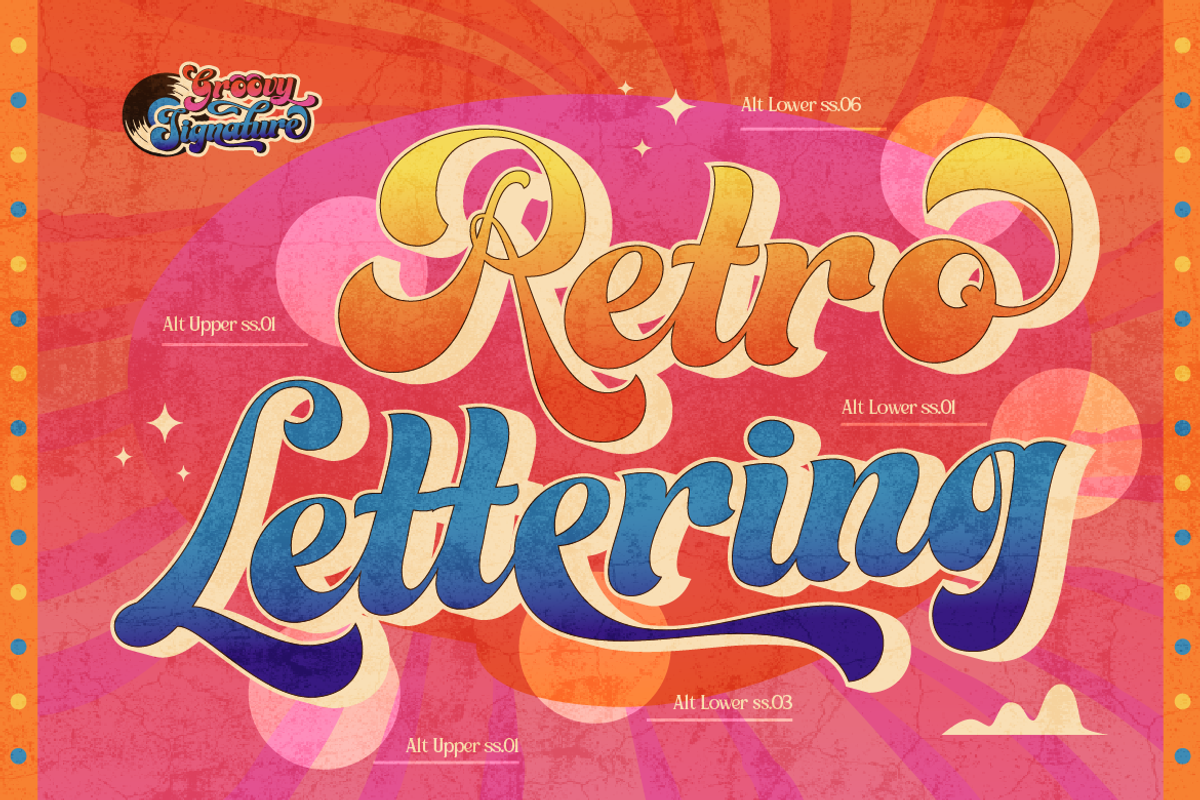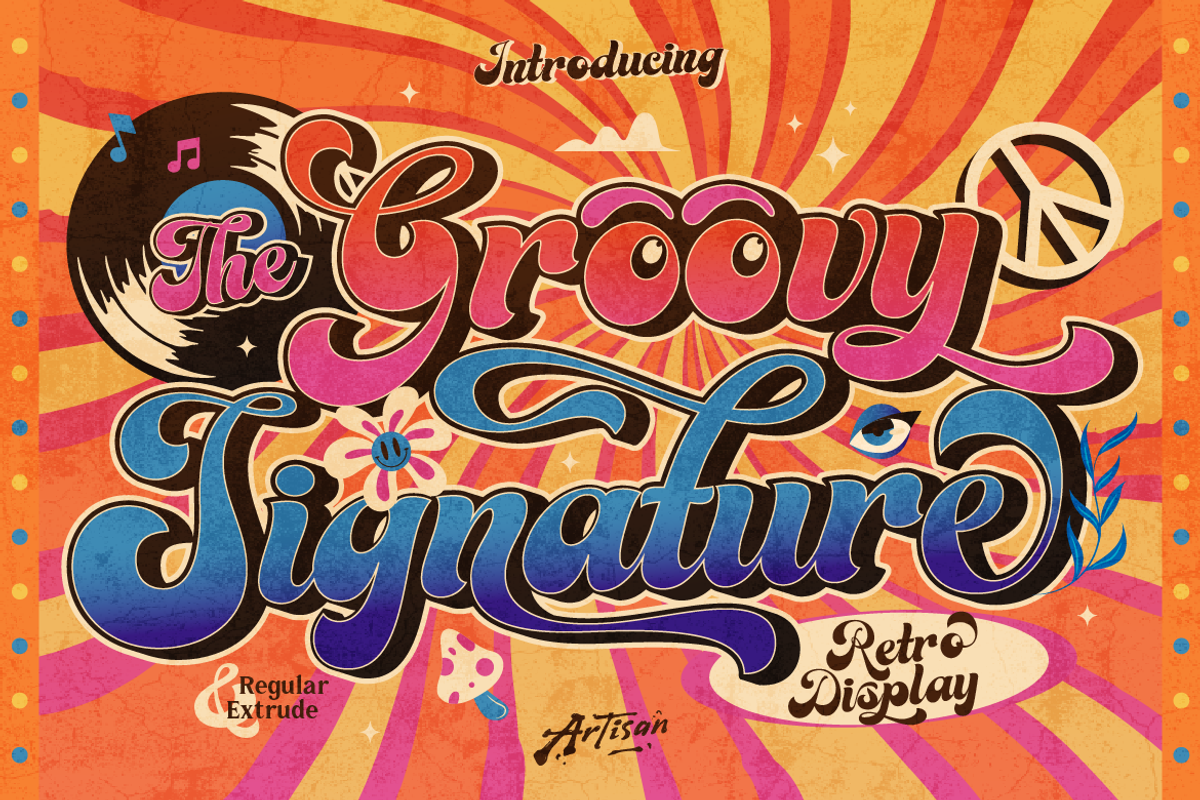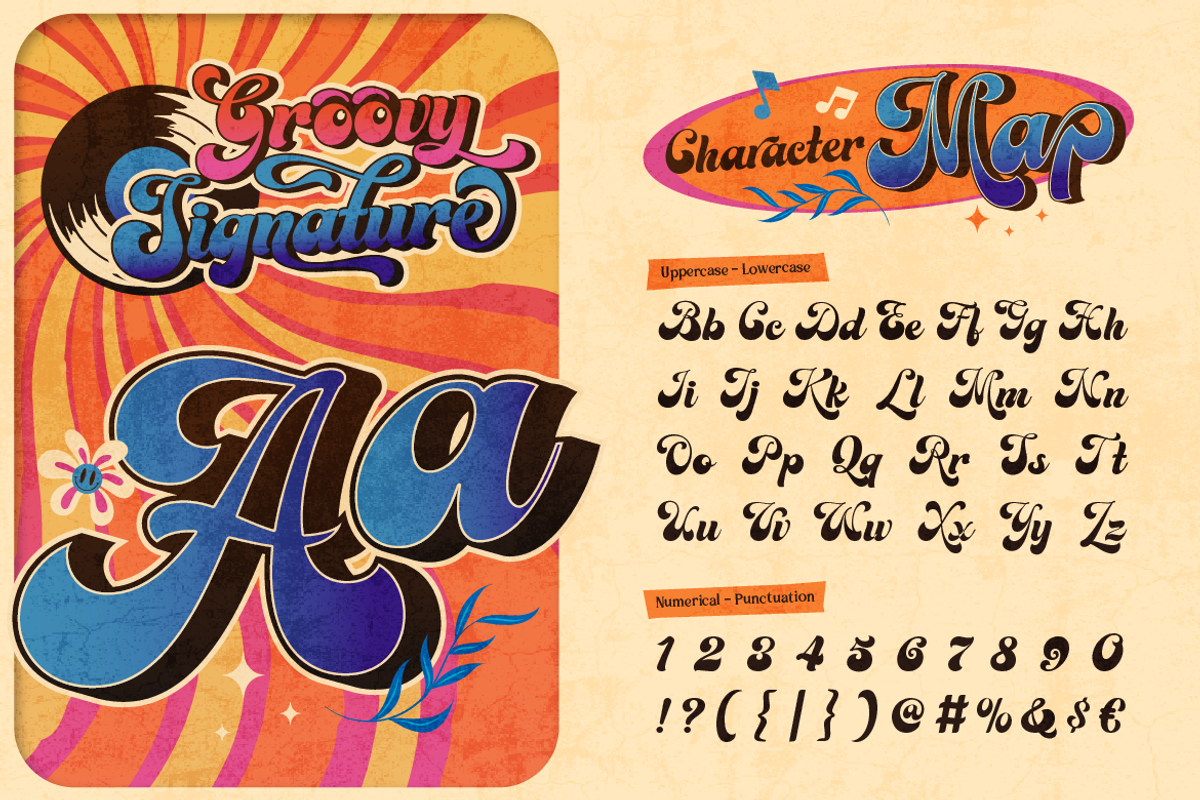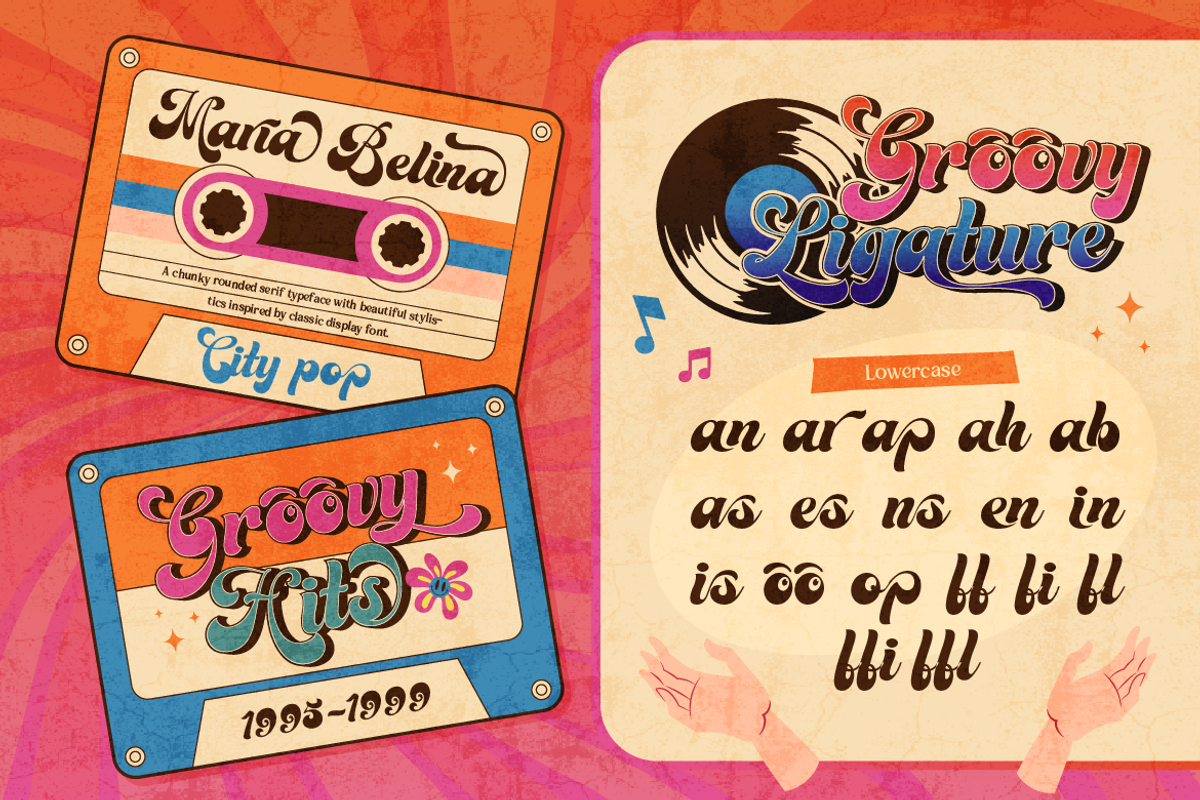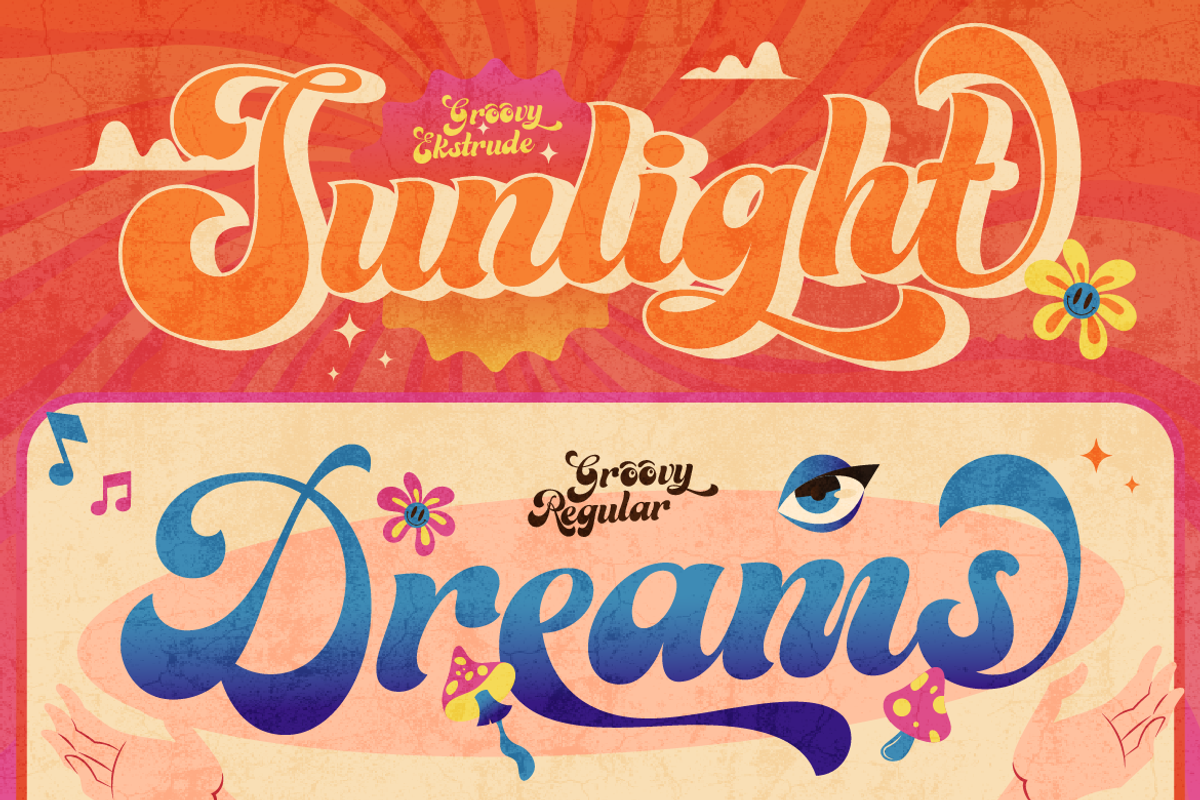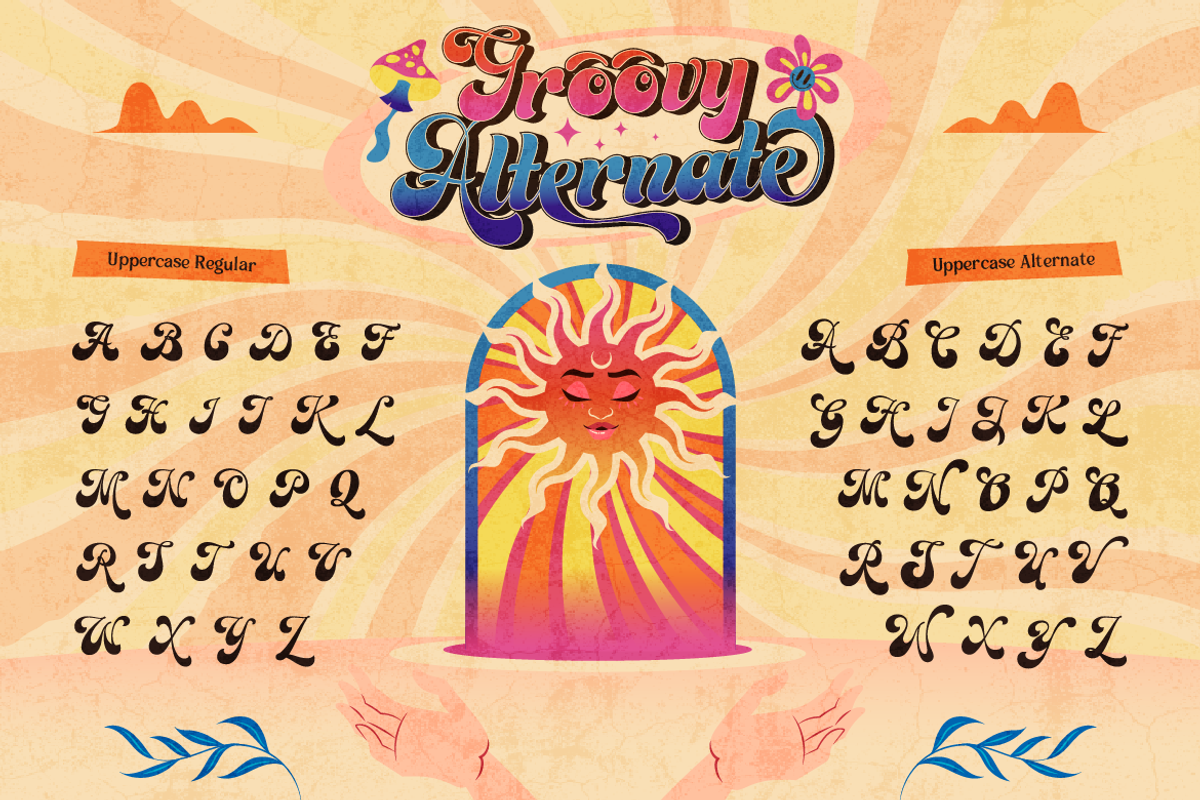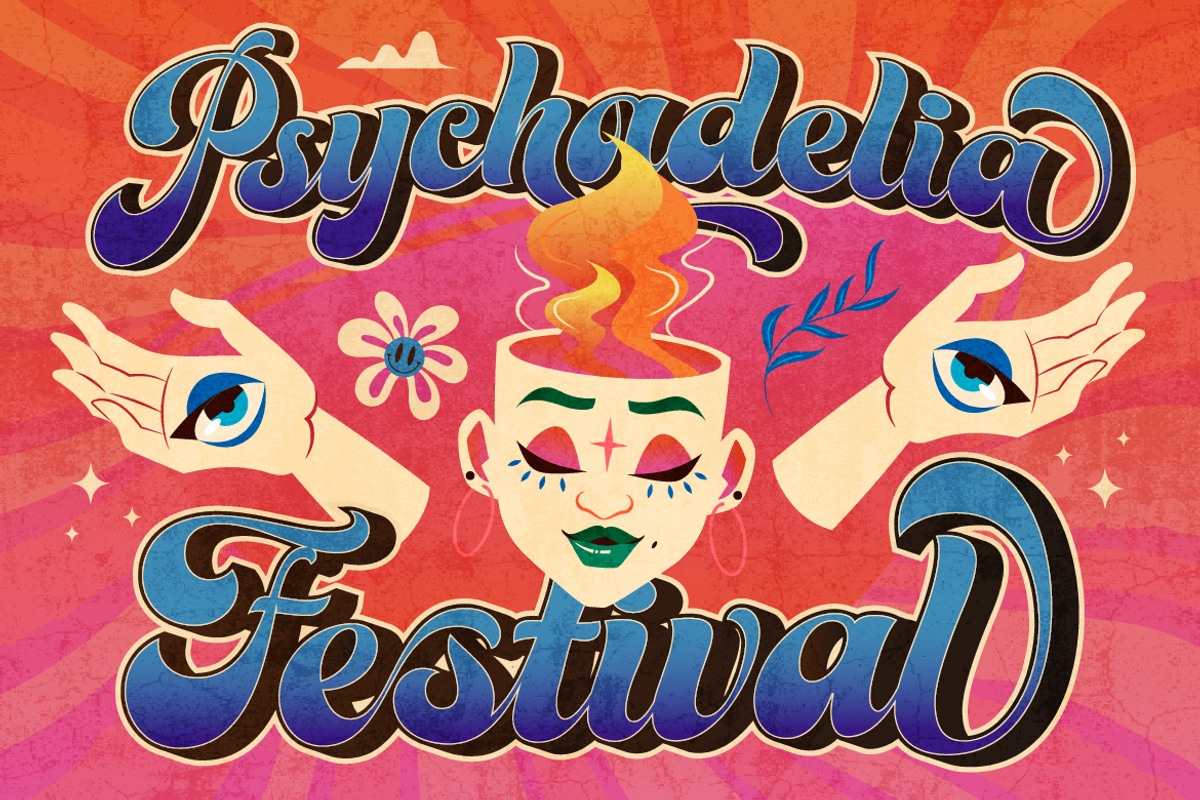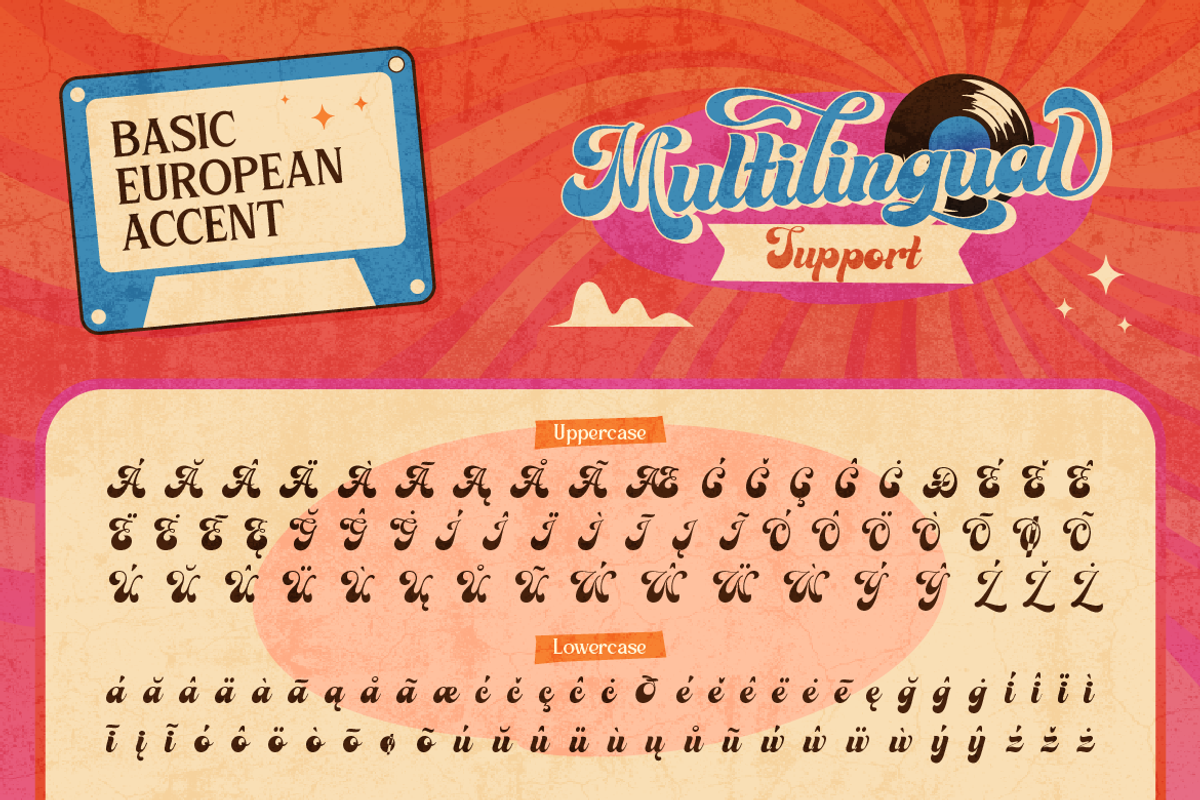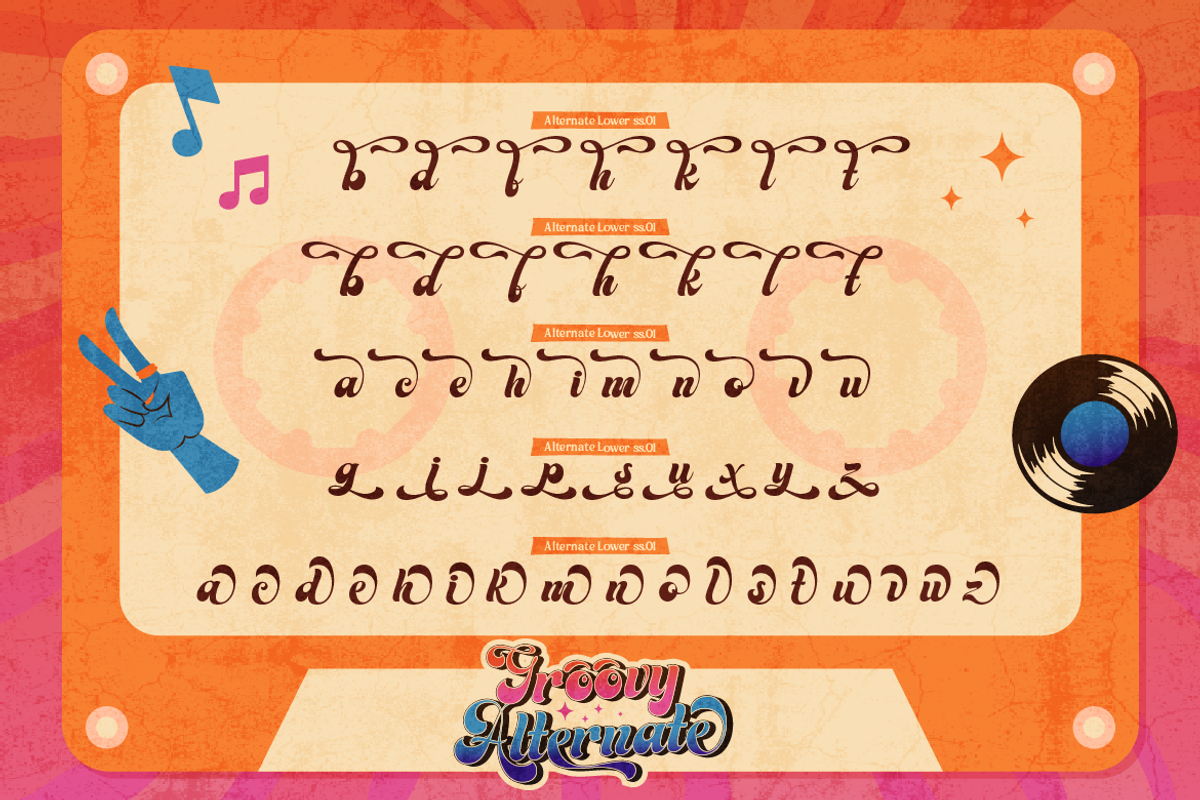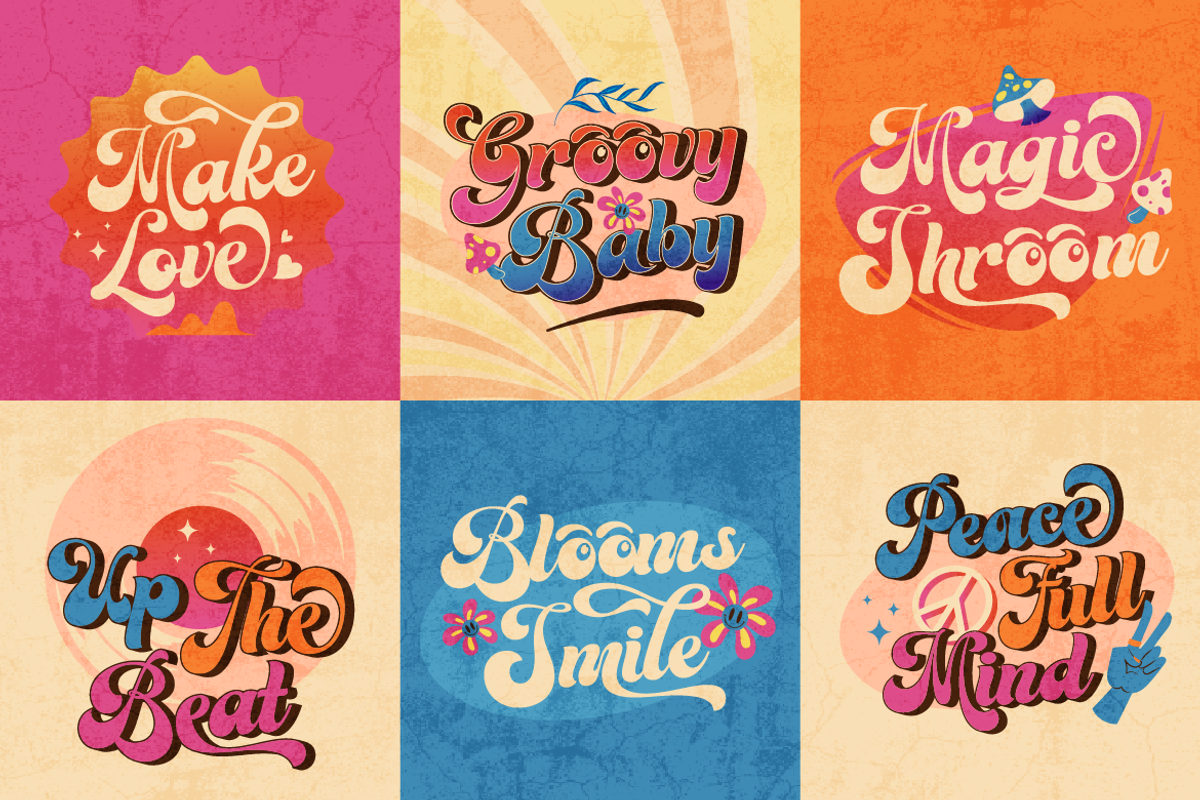
Groovy Signature - Retro Font
Groovy Signature is a retro-inspired script font that captures the free-spirited energy of the 1970s psychedelic era. With its bold, flowing signature-style strokes and playful swirls, this font brings instant nostalgic charm to any design project. Inspired by vintage vinyl covers, festival posters, and groovy disco aesthetics, Groovy Signature combines smooth cursive movement with a bold, extruded 3D effect for maximum visual impact.
This font comes in multiple style variations including an Extrude version for that classic layered retro look, plus Regular for more versatility across your projects. Every curve and swash is crafted to feel authentic to vintage hand-lettering, while still staying clean and readable for modern use.
Groovy Signature includes full uppercase and lowercase letters, numbers, and punctuation, making it ready to use straight out of the box for branding, packaging, social media graphics, posters, and more.
Retro and vintage-themed branding
Music festival posters and flyers
Album covers and band merchandise
T-shirt and apparel designs
Social media quote graphics
Packaging with a nostalgic, groovy vibe
Logos for boutiques, cafes, or lifestyle brands
Stickers and sticker sheets
Wedding or event invitations with a retro twist